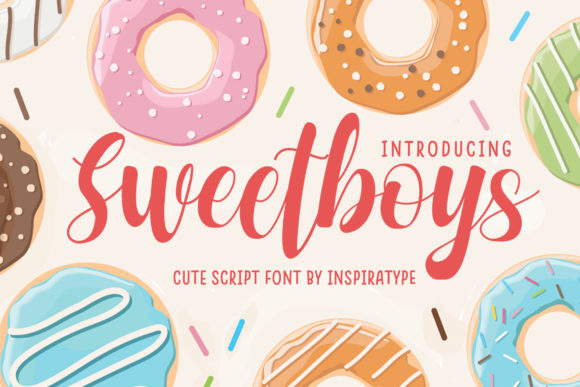
Unleash the Allure of Sweetboys: A Timeless Handwritten Font for Every Creative Endeavor
In the realm of design, where expression meets aesthetics, Sweetboys emerges as a captivating handwritten font, exuding an aura of elegance and charm. Its graceful strokes and flowing curves lend a touch of sophistication to any project, making it the perfect choice for those seeking a font that speaks volumes.
Sweetboys is not merely a collection of letters; it is an artistic expression that captures the essence of timeless beauty. Its versatility extends from the delicate flourishes of wedding invitations to the warmth of thank-you cards, from the heartfelt expressions of quotes to the professional touch of business cards. It effortlessly elevates any design, leaving an unforgettable impression.
Immerse yourself in the world of Sweetboys and discover a font that resonates with your creative soul. Whether you're a seasoned designer seeking a touch of elegance or a novice just starting your design journey, Sweetboys will captivate you with its timeless allure. Experience the joy of creating designs that exude sophistication and charm, capturing the attention of your audience and leaving a lasting impact.
Reasons Why Sweetboys is the Perfect Font For You:
* **Unparalleled Elegance:** Sweetboys' graceful strokes and flowing curves add a touch of sophistication and refinement to any design, making it perfect for projects that demand a timeless aesthetic.
* **Versatility Personified:** From the intimate charm of personal letters to the professional polish of business documents, Sweetboys seamlessly adapts to a wide range of projects, catering to your diverse design needs.
* **A Timeless Masterpiece:** Drawing inspiration from classic handwritten styles, Sweetboys transcends fleeting trends, ensuring your designs stand the test of time and continue to captivate audiences for years to come.
* **Emotional Resonance:** Sweetboys' delicate flourishes evoke a sense of nostalgia and warmth, creating designs that resonate with your audience on a deeper level, leaving a lasting impression.
* **Effortless Creativity:** With Sweetboys at your fingertips, the creative process becomes a joy. Its intuitive design allows you to effortlessly express your ideas, transforming your designs into captivating works of art.
Embrace the beauty of Sweetboys and embark on a creative journey that knows no bounds. Its versatility, timeless appeal, and emotional resonance make it the ideal choice for designers seeking to create designs that leave an indelible mark. Experience the transformative power of Sweetboys and unleash your creative potential today!